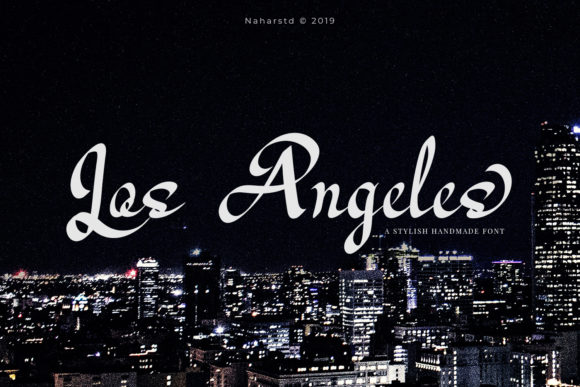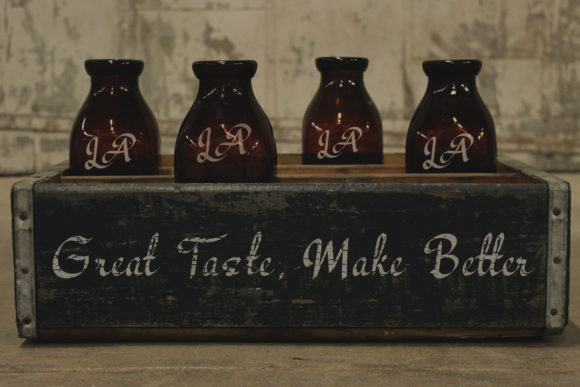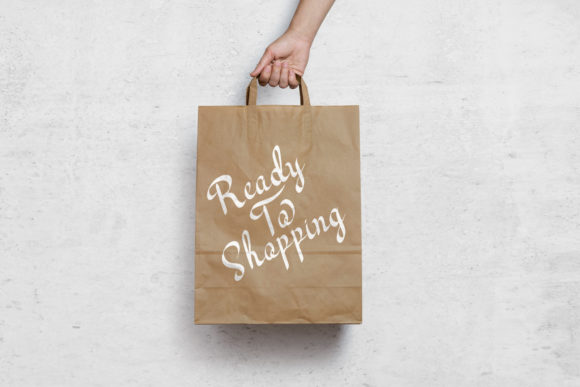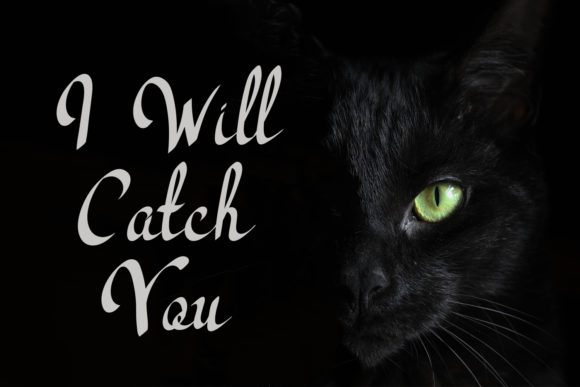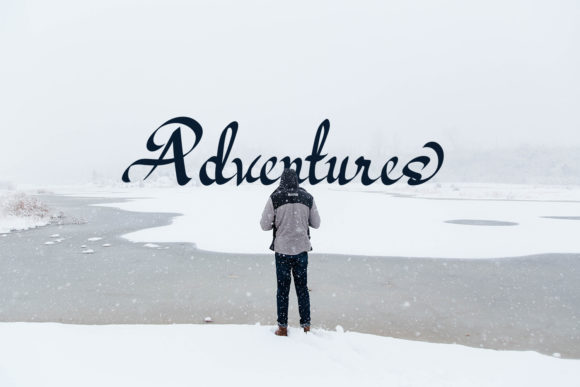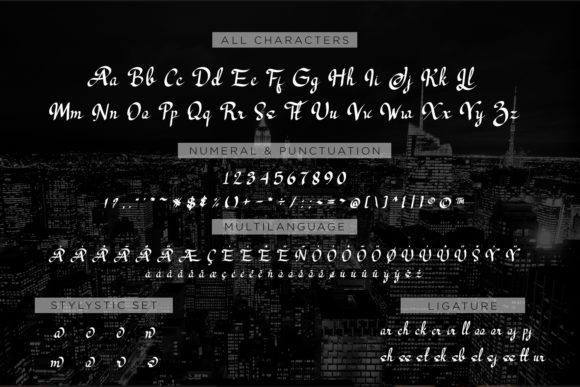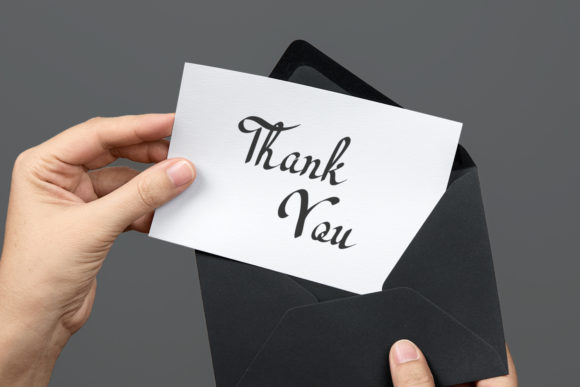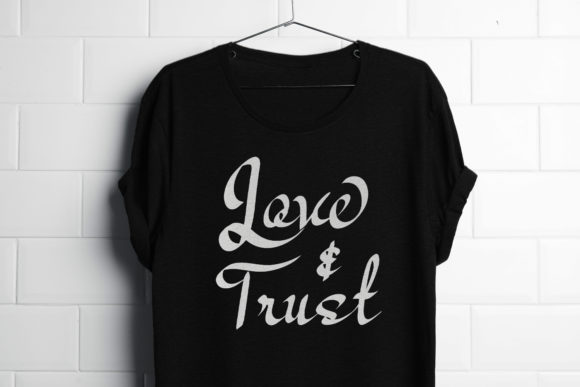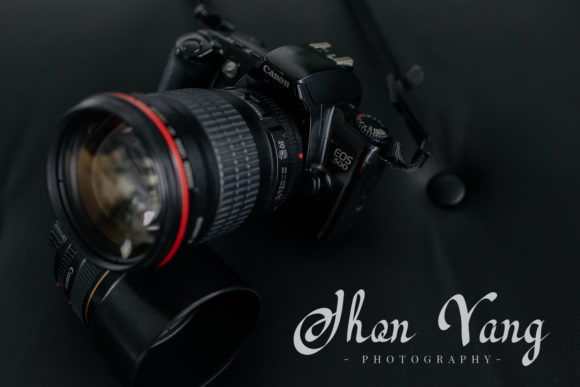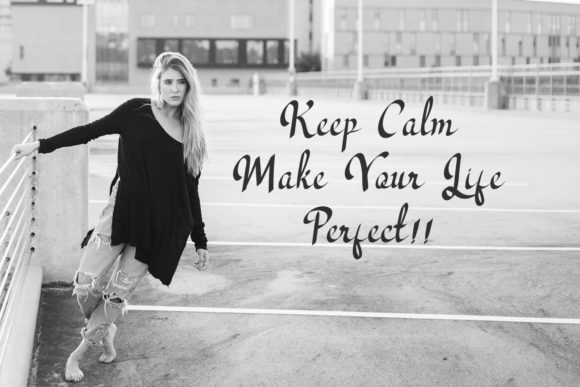
Los Angeles Font
About Los Angeles Font
Inspired by the city of angels, Los Angeles is a stunningly modern and cool handwritten font with a bold feel. Use it to turn any design idea into a true standout!